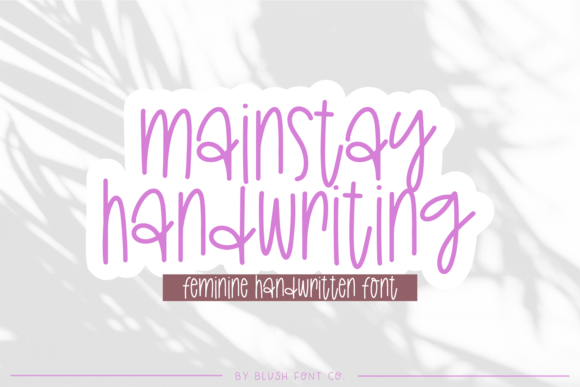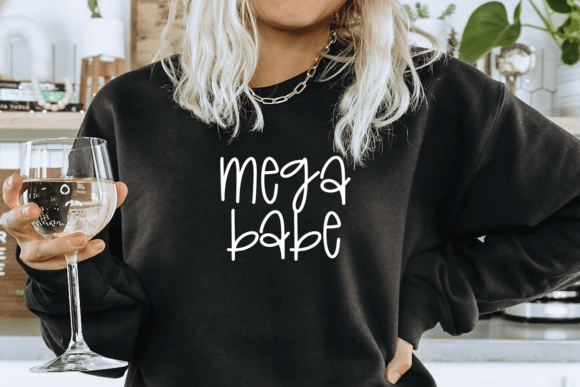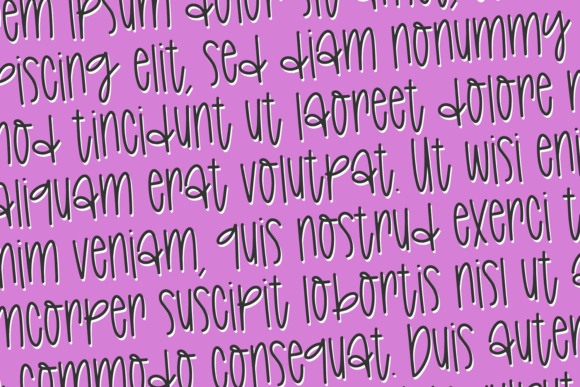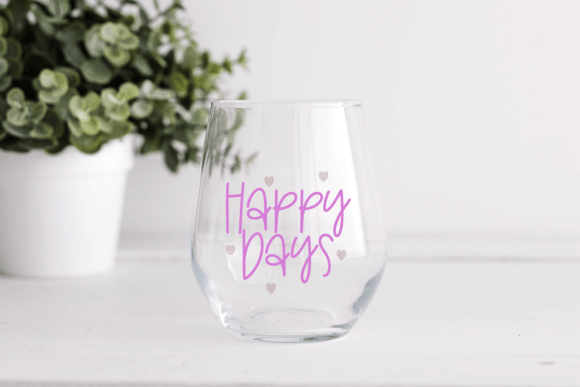
Mainstay Handwriting Font
“Mainstay Handwriting” Feminine handwriting font.
Mainstay is a handwriting font that is perfect for social media or crafty projects. Use if for branding, crafts for decor, invitations, and more! This font includes upper and lowercase glyphs, numbers, and basic punctuation marks.